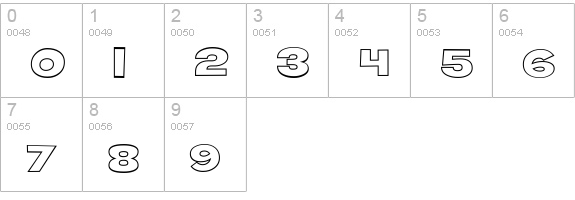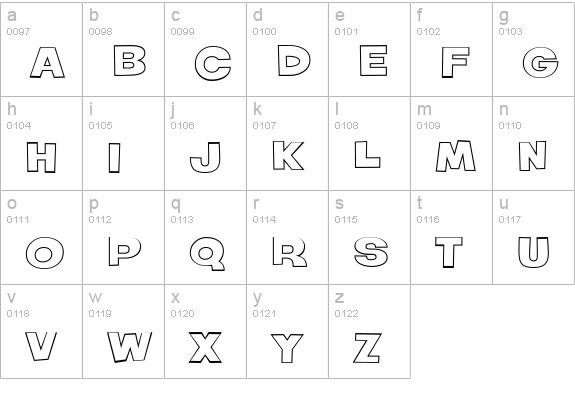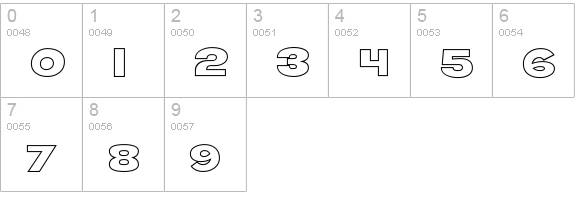
Roller World BTN Wide Bold Out is a strong, high-contrast, extended-width variant in the Roller typeface family \xE2\x80\x94 well suited to headlines, attention-grabbing titles, and strong calls-to-action.
Roller World BTN Wide Bold Out font is a bold and dynamic typeface that exudes a sense of energy and movement. Its wide and bold design makes it perfect for eye-catching headlines, posters, and logos. The unique outline style adds a modern and edgy touch to any design project. Best of all, Roller World BTN Wide Bold Out font is available for free download at FontsMarket.com. Whether you're a designer looking to make a statement or a creative individual in need of a standout font, this typeface is sure to impress. Don't miss out on the opportunity to enhance your projects with this striking and versatile font - get it for free today!